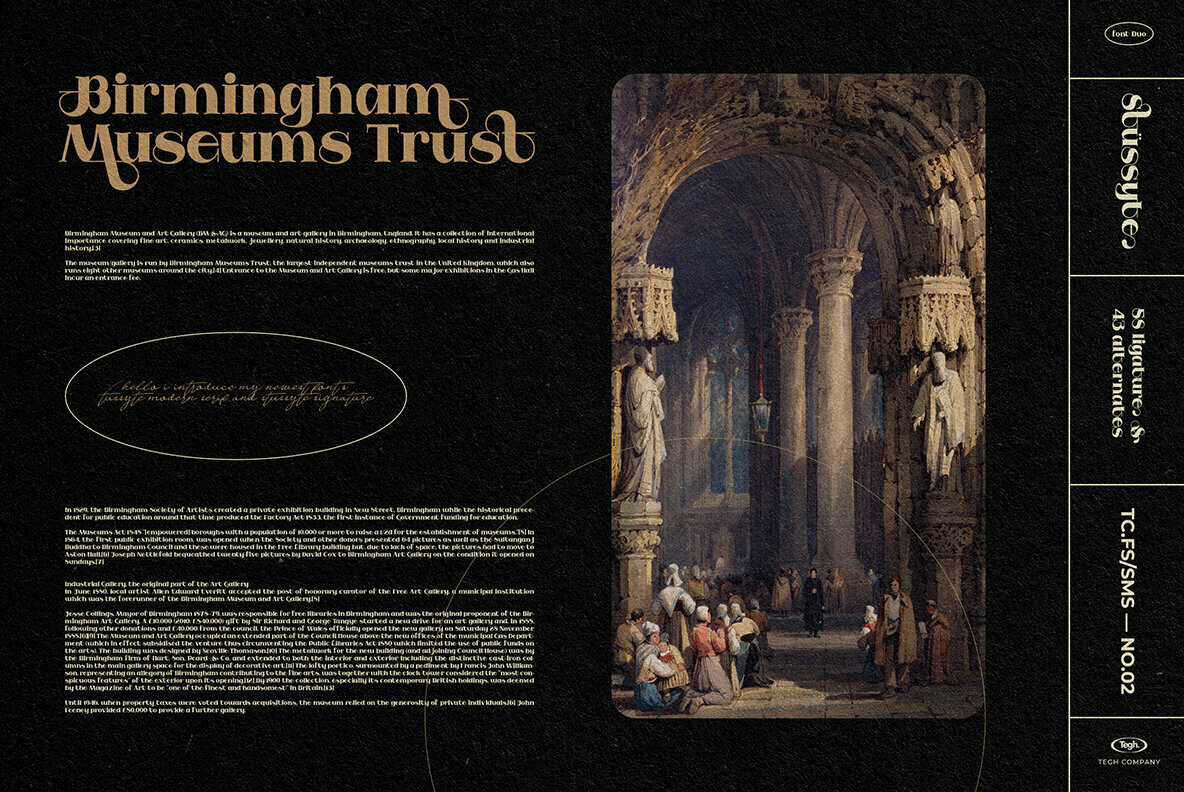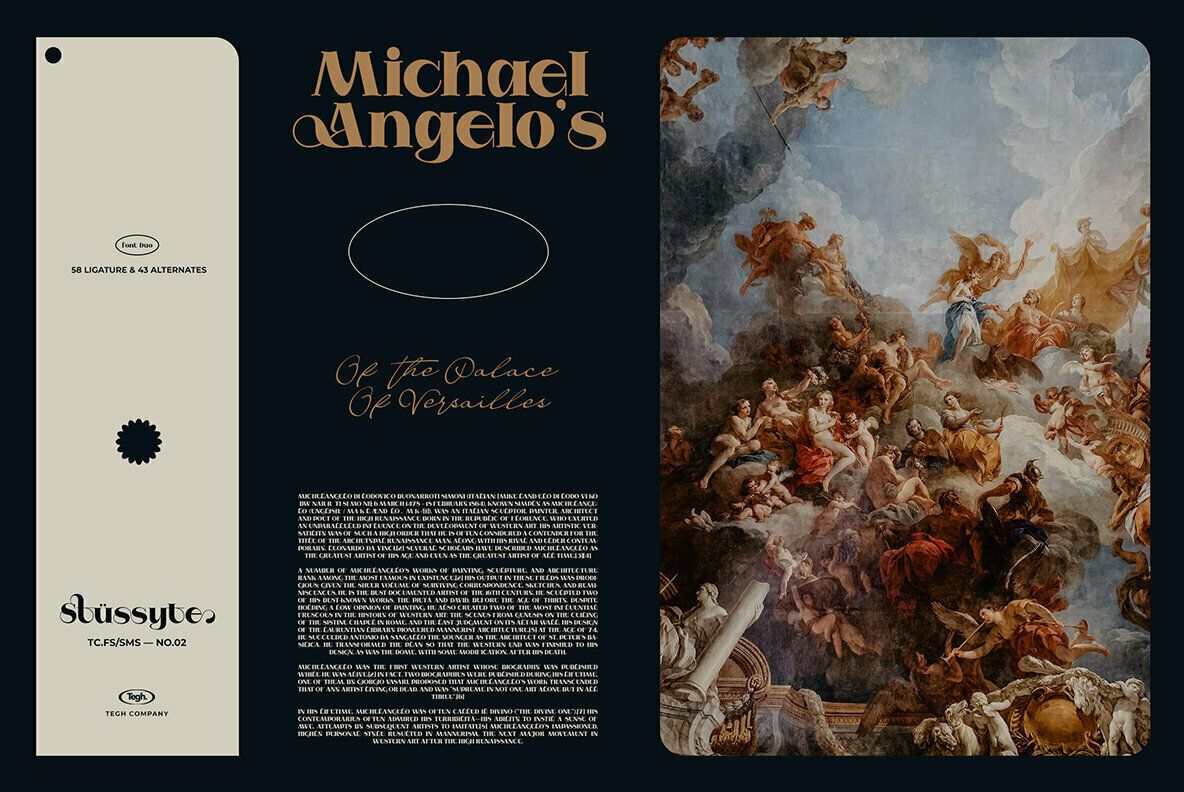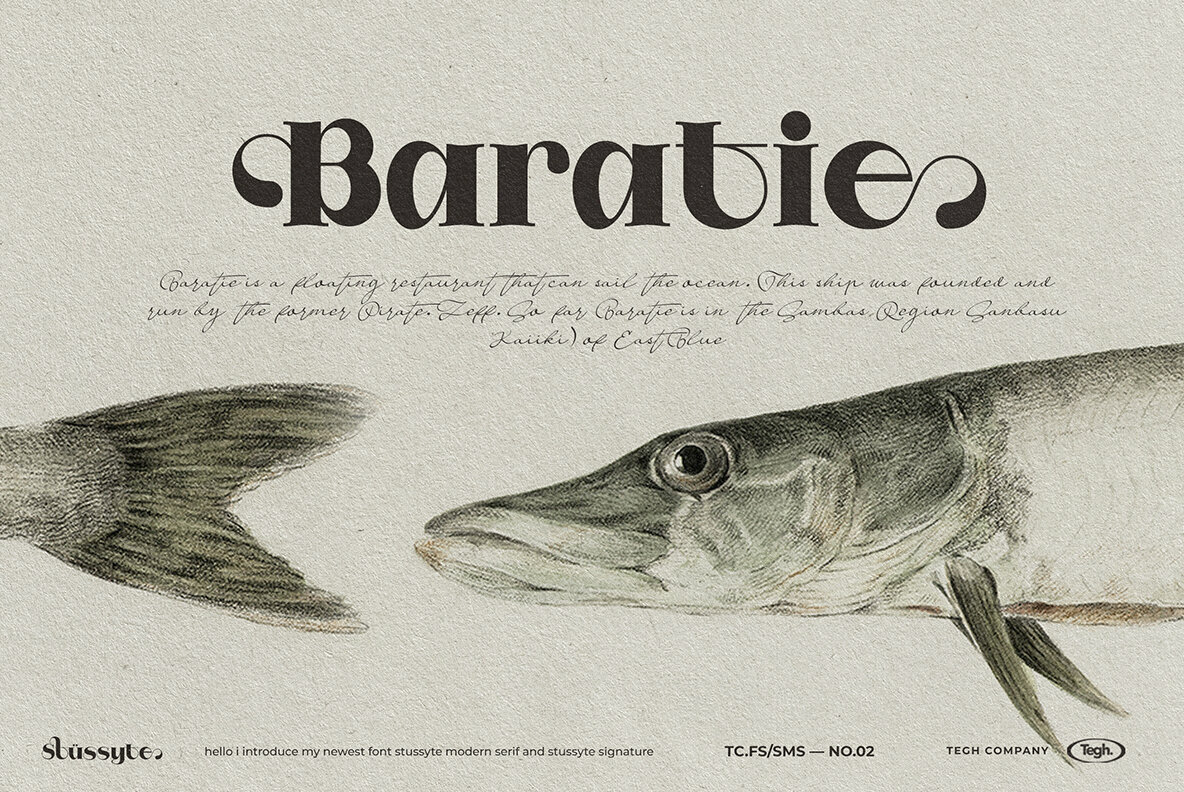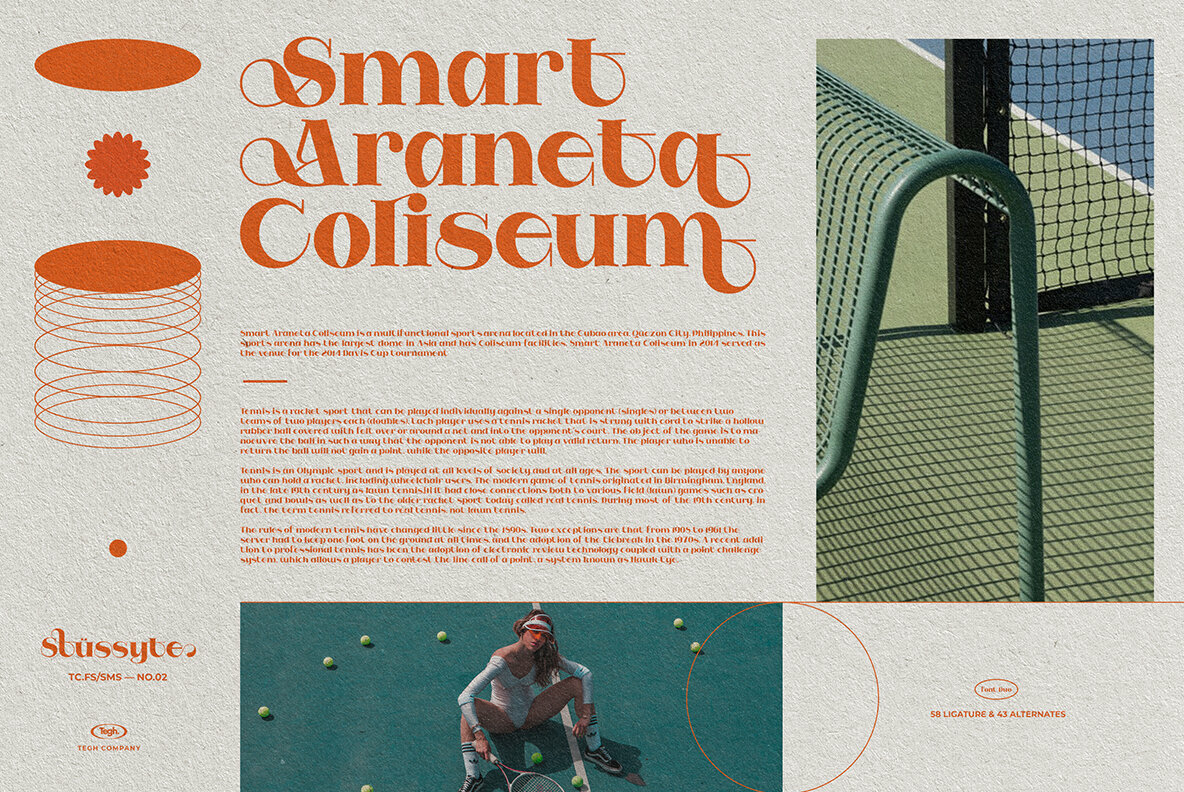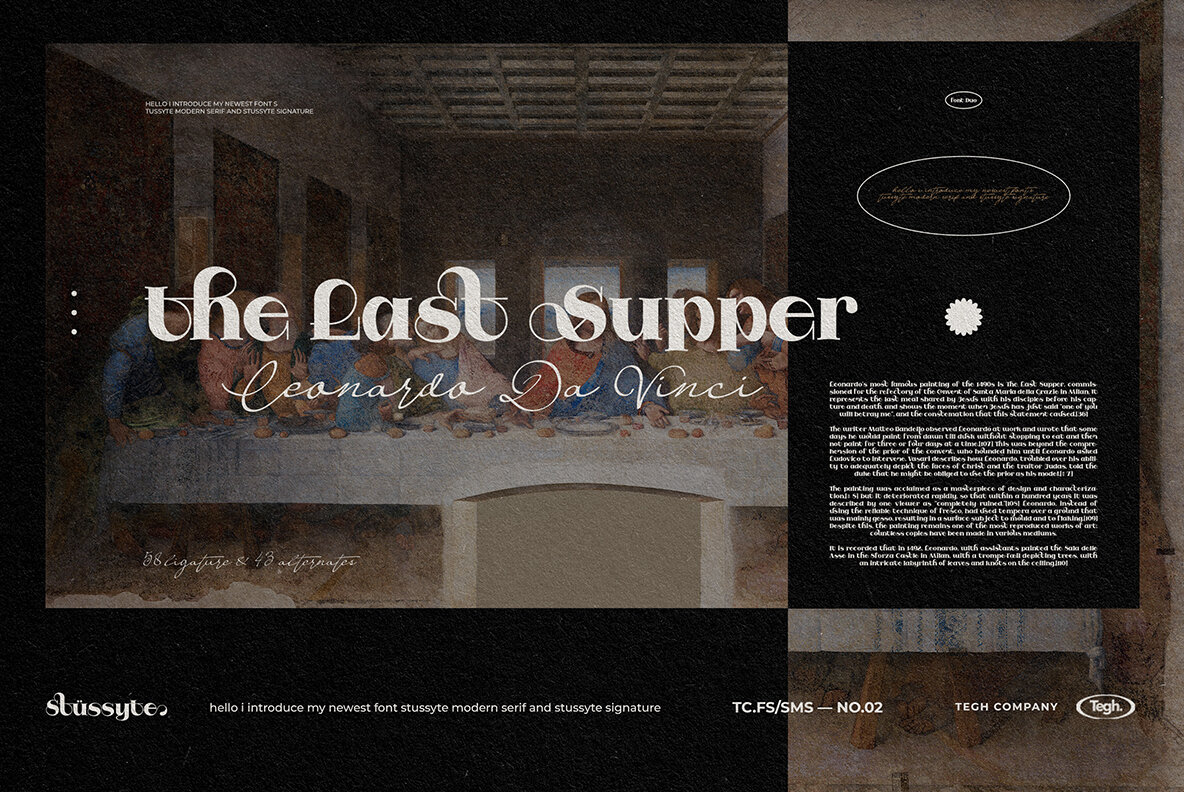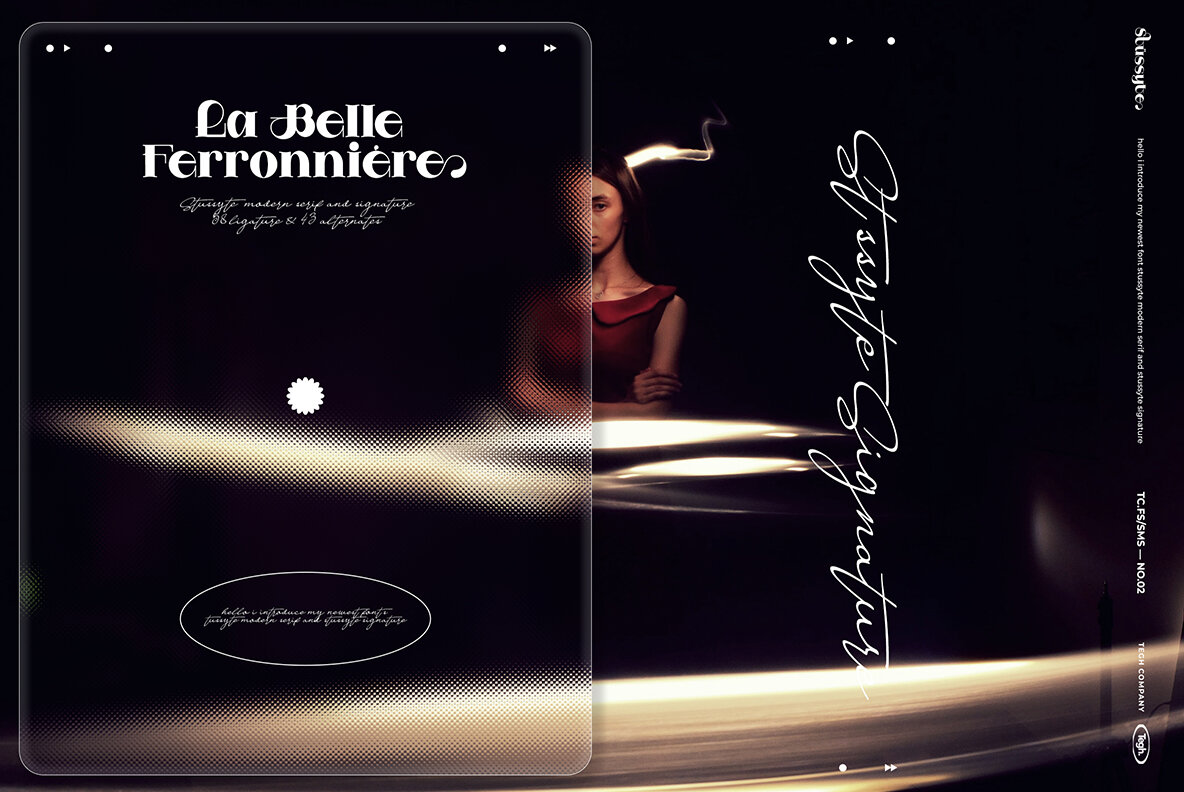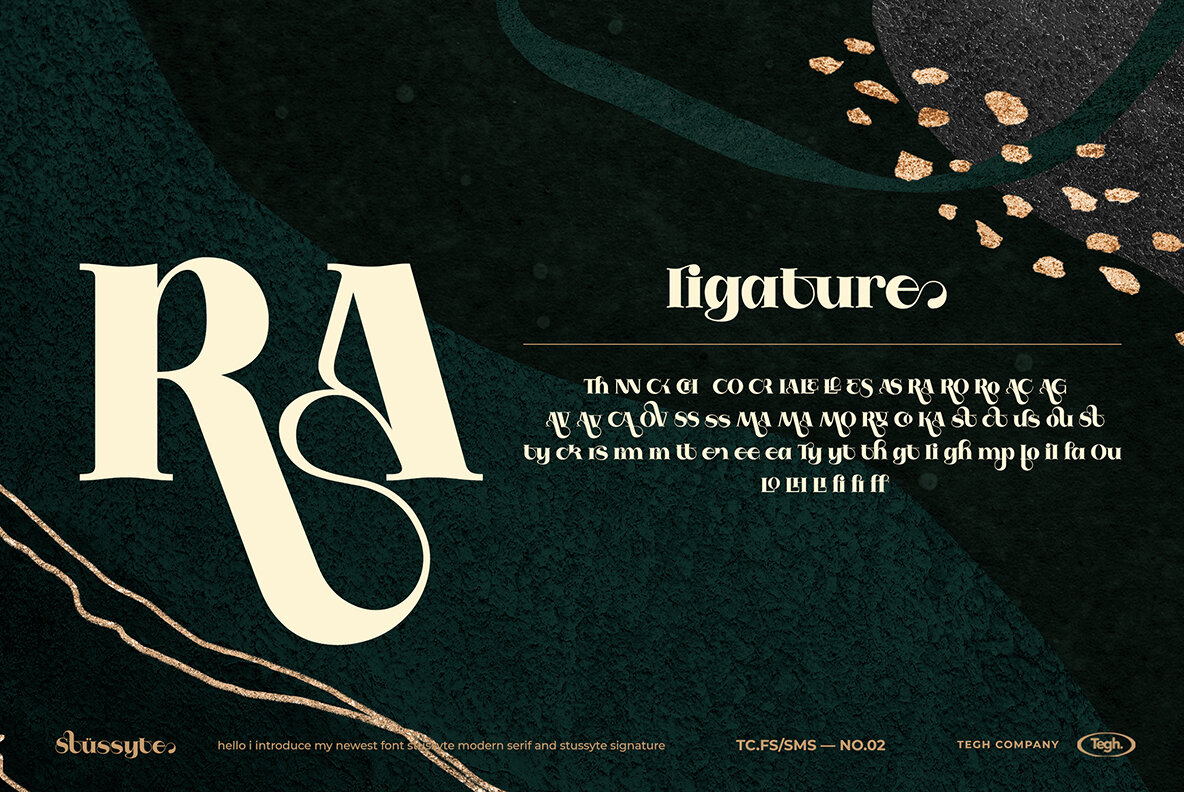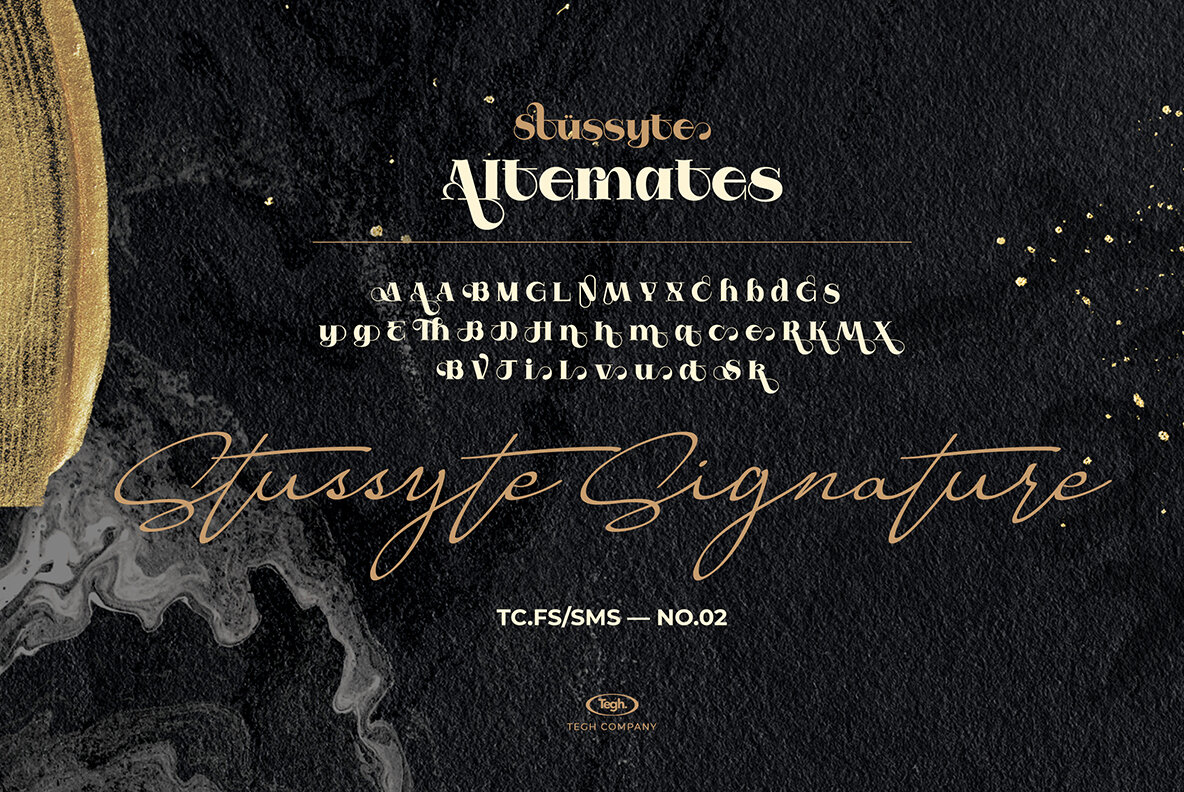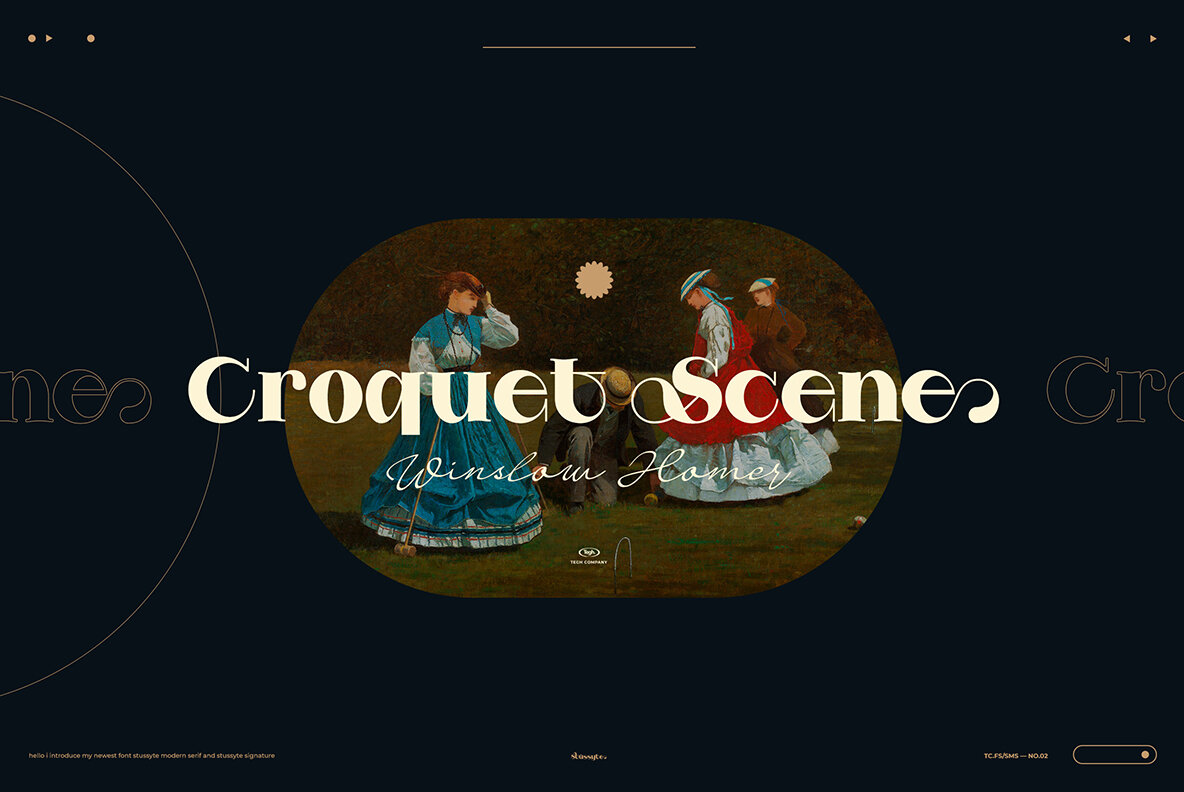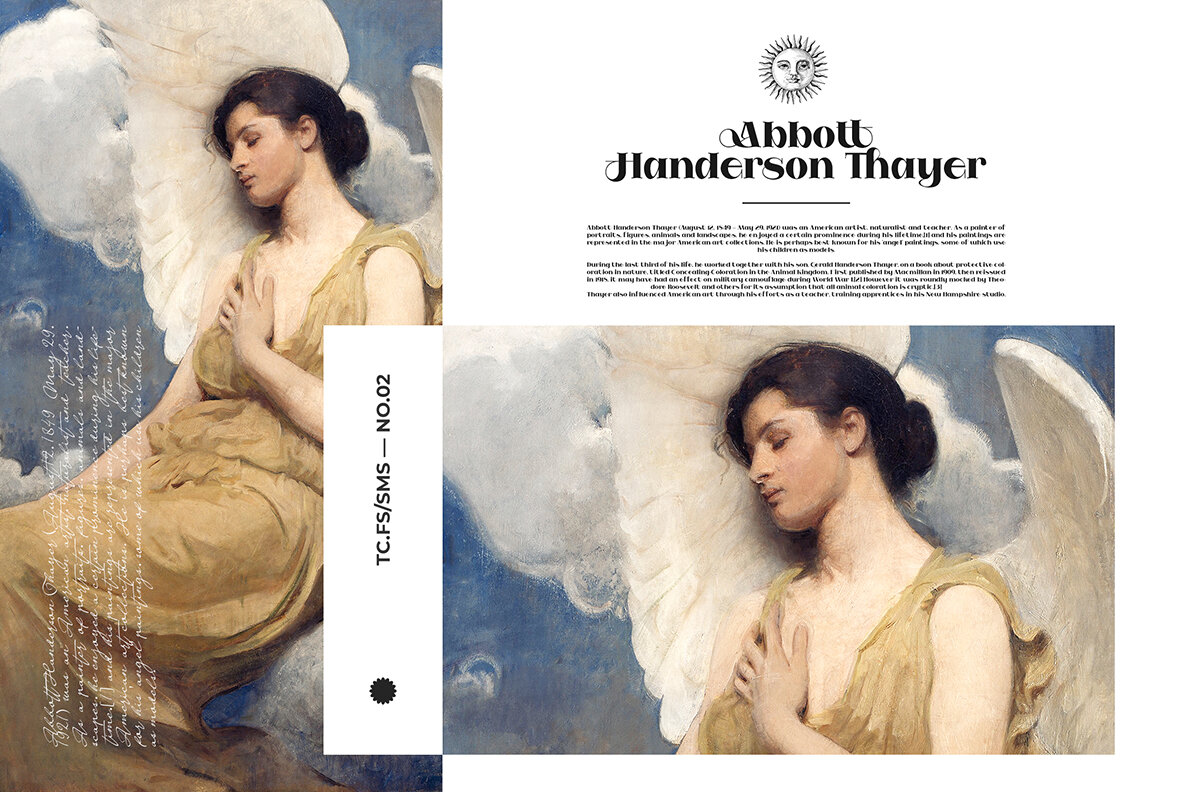
Stussyte Font Duo
The Stussyte Font Duo from Whether you're crafting brand designs, social media posts, magazine templates, or intricate layouts, Stussyte provides a seamless experience to meet all your design needs.Stussyte Font Duo: Elegance Meets Versatility
is an exceptional choice for design enthusiasts seeking both functionality and style. This dynamic font pair offers a harmonious blend of a versatile main font with a distinctive signature typeface, ideal for infusing a touch of sophistication into any creative project.Features